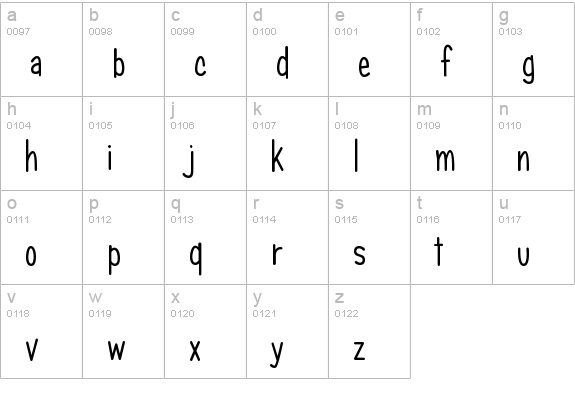
Candy Round BTN Cond Font Details
Candy Round BTN Cond is a distinctive, condensed-width variant in the Candy typeface family \xE2\x80\x94 well suited to design and typography projects.
Candy Round BTN Cond font is a delightful and playful typeface that exudes a sense of fun and whimsy. Its rounded edges and bold strokes give it a friendly and inviting look, making it perfect for a variety of design projects. This versatile font is ideal for creating eye-catching headlines, logos, posters, and more. Best of all, Candy Round BTN Cond font is completely free to download at FontsMarket.com. This means you can easily add this charming font to your collection without any cost. Don't miss out on the opportunity to enhance your designs with this cheerful and engaging typeface. Download Candy Round BTN Cond font today and let your creativity shine!